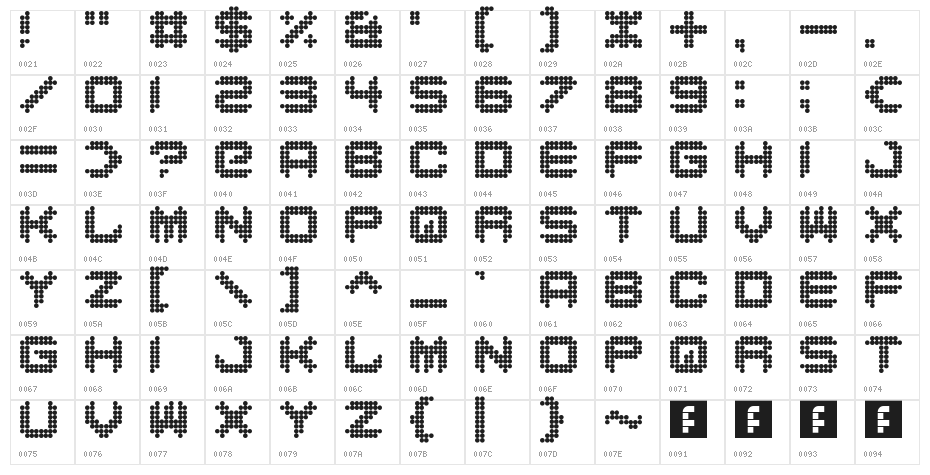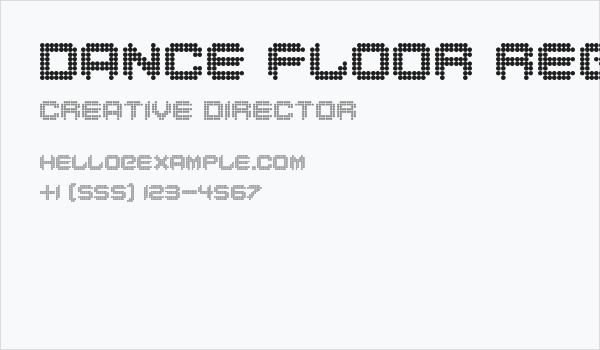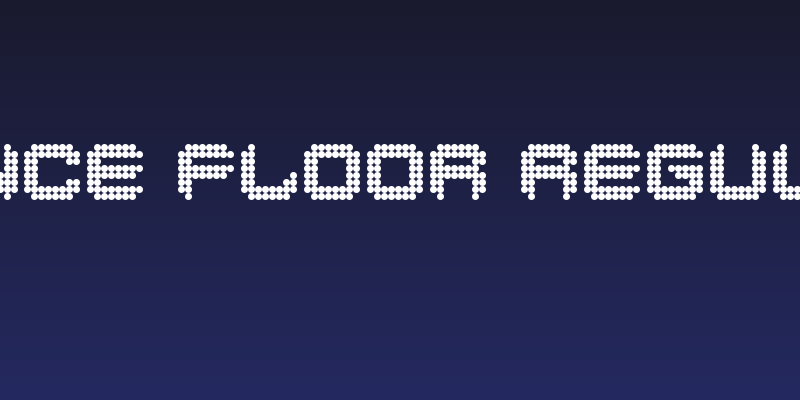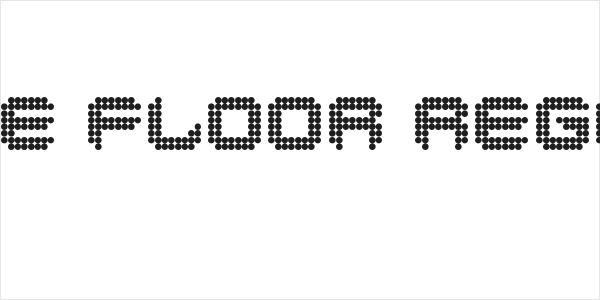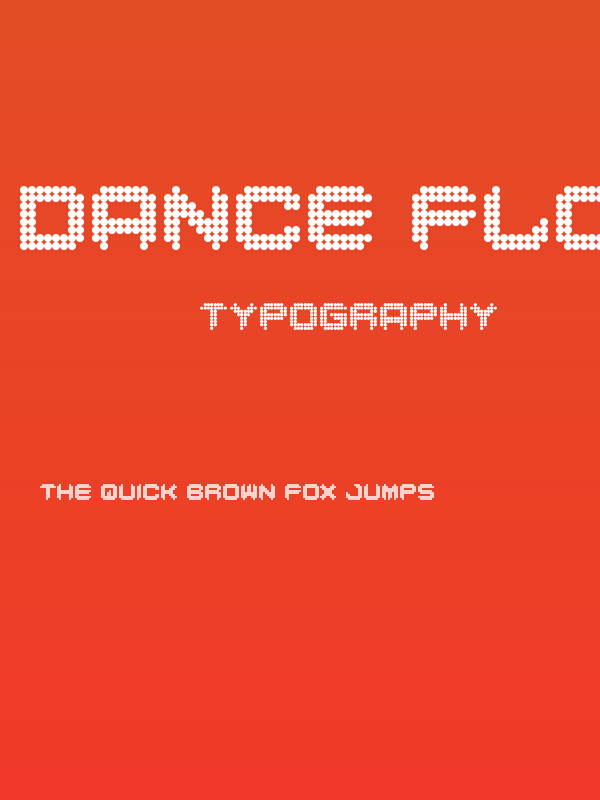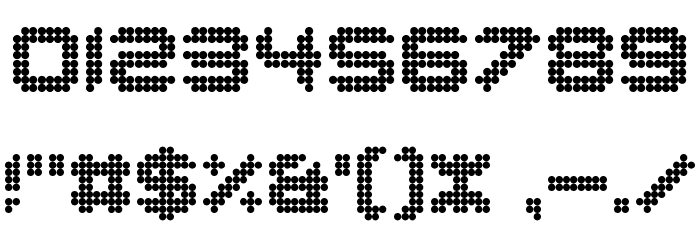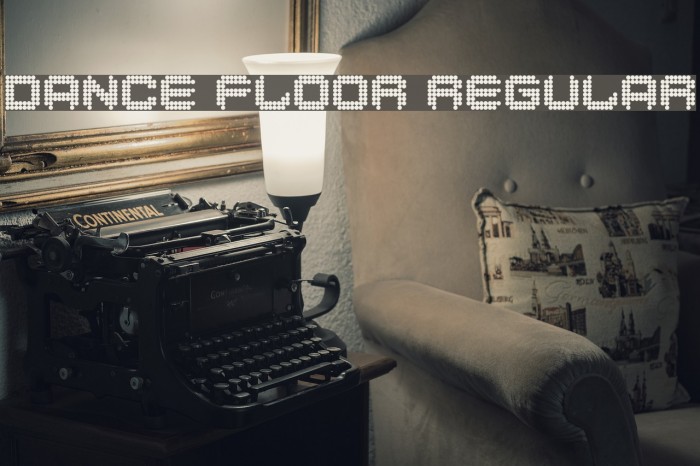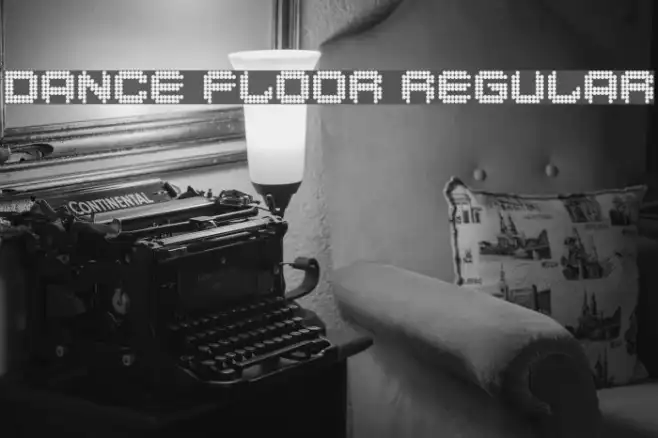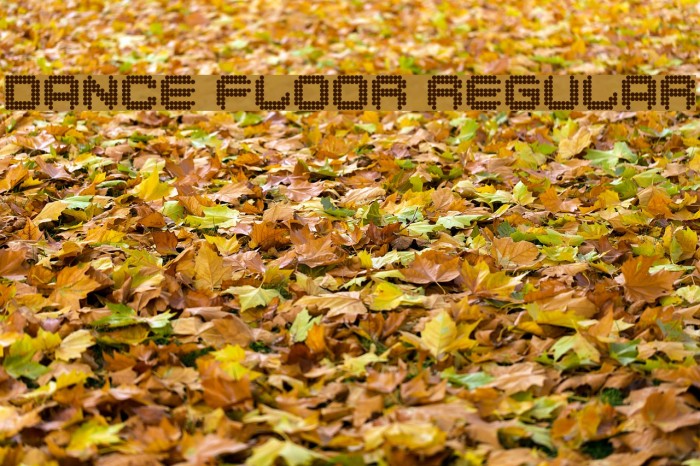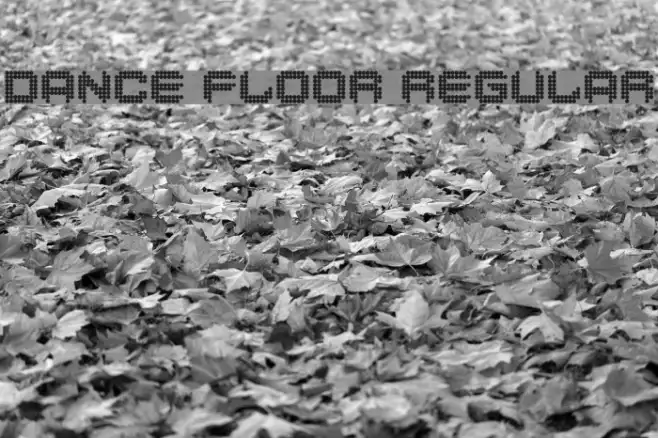
Dance Floor Regular Font
Dance Floor Regular Description
This font features a unique and playful design, composed entirely of small, evenly spaced dots that form each character. The dots give the font a digital or retro appearance, reminiscent of LED displays or marquee lights. Each letter and number is clearly defined, maintaining legibility despite the unconventional style. The uniformity of the dots creates a cohesive look across all characters, while the spacing between the dots ensures clarity. This font is particularly eye-catching and is designed to stand out, making it ideal for creative and bold design projects.
| Overall Style | Retro, Decorative |
| Proposed Projects | Ideal for party invitations, event posters, digital displays, and retro-themed designs. |